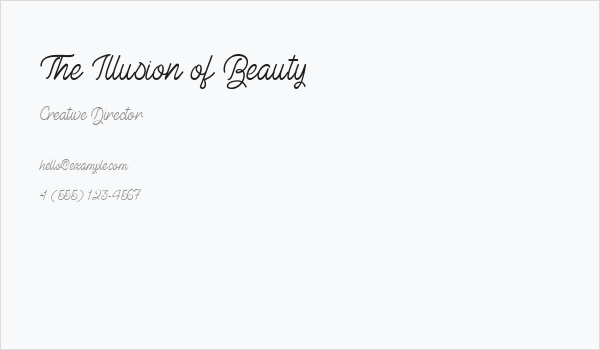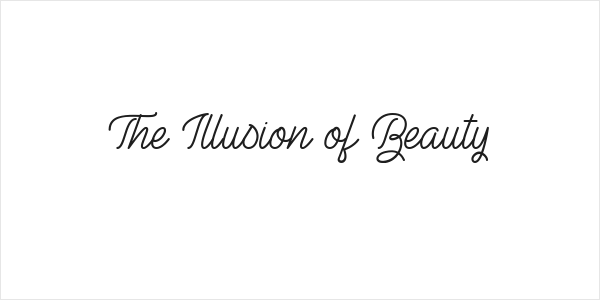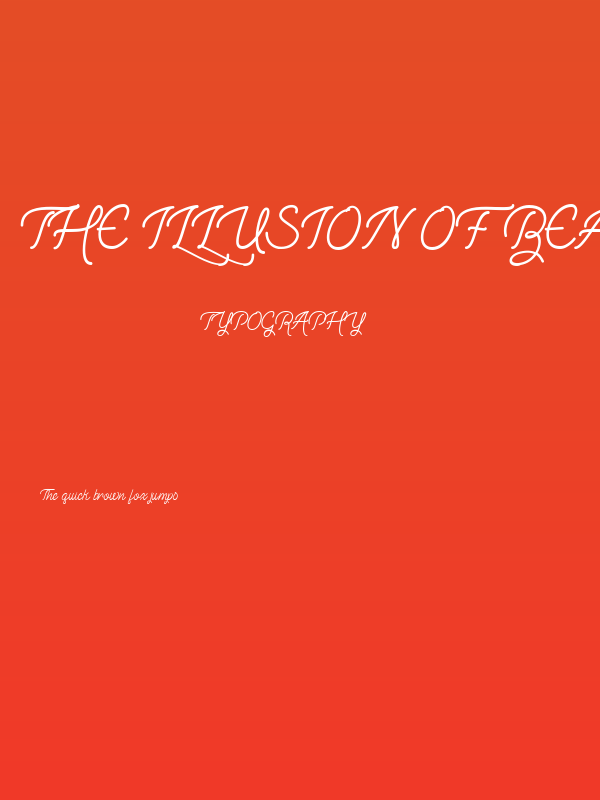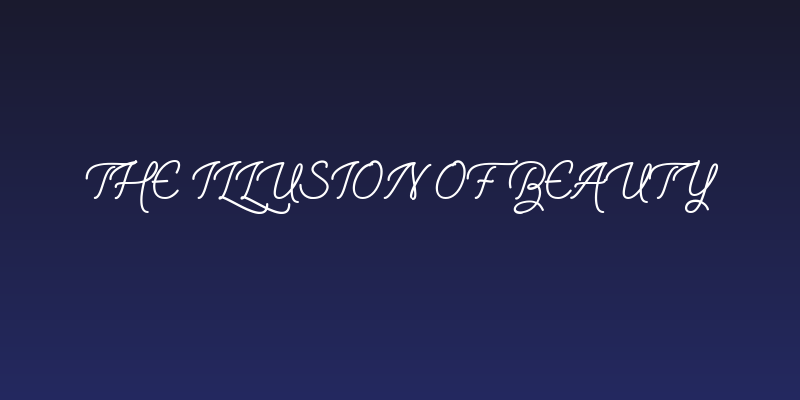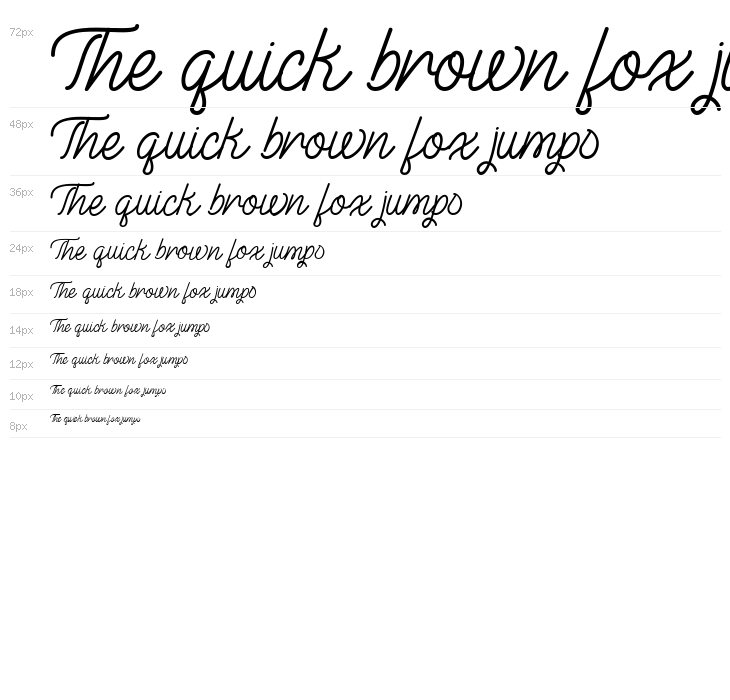
The Illusion of Beauty Font
The Illusion of Beauty Description
This elegant script font features fluid, interconnected strokes that create a sense of movement and grace. The uppercase letters are ornate, with sweeping curves and loops that add a touch of sophistication. The lowercase letters maintain a consistent flow, enhancing readability while retaining an artistic flair. Numbers and special characters are designed with the same attention to detail, ensuring a cohesive look across all text elements. The font's overall appearance is both classic and modern, making it versatile for various design applications.
| Proposed Projects | Ideal for wedding invitations, elegant branding, greeting cards, and artistic posters. |